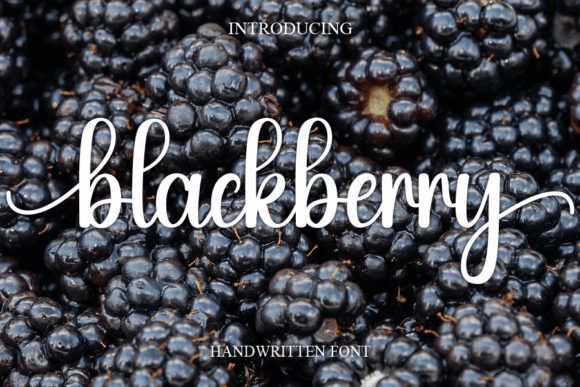
The Sweet Charm of Blackberry Font: A Designer’s Delight
I’ll never forget the time I was working on a wedding invitation project, and my client asked for a font that was ” elegant, yet playful, and totally Instagram-worthy.” I scoured the internet, trying out font after font, but nothing seemed quite right. That was until I stumbled upon Blackberry Font. ✨ This sweet and cursive handwritten font has since become a staple in my design toolkit, and I’m excited to share its charm with you.
An Honest Review of Blackberry Font
• ✨ Sweet and elegant: Blackberry Font has a gentle, cursive feel that’s perfect for adding a touch of sophistication to any design.
• ✅ Versatile: This font works beautifully on a variety of design ideas, from branding and logos to wedding materials and greeting cards.
• 💕 Romantic and playful: Blackberry Font has a whimsical feel that’s sure to add a joyful touch to your projects.
• 👍 Easy to read: Despite its elegant feel, this font remains highly legible, even at smaller sizes.
While Blackberry Font is an amazing addition to any design project, there are a few things to keep in mind: 🤔
• ⚠️ Limited use in bold or heavy weights: Blackberry Font shines in its regular and light weights, but can become a bit overbearing in bold or heavy weights.
• ⚠️ Not ideal for body text: While legible, this font is best suited for headlines, titles, or short paragraphs, rather than lengthy body text.
The Story Behind Blackberry Font
Blackberry Font was designed with the intention of capturing the essence of handwritten elegance. Inspired by the beauty of cursive writing, this font aims to bring a touch of romance and whimsy to any design project. Whether you’re a designer, crafter, or creative hobbyist, Blackberry Font is sure to delight.
Q: What type of projects is Blackberry Font best suited for?
A: Blackberry Font is versatile and can be used in a variety of projects, including branding, logos, wedding materials, greeting cards, fashion designs, and marketing promotions.